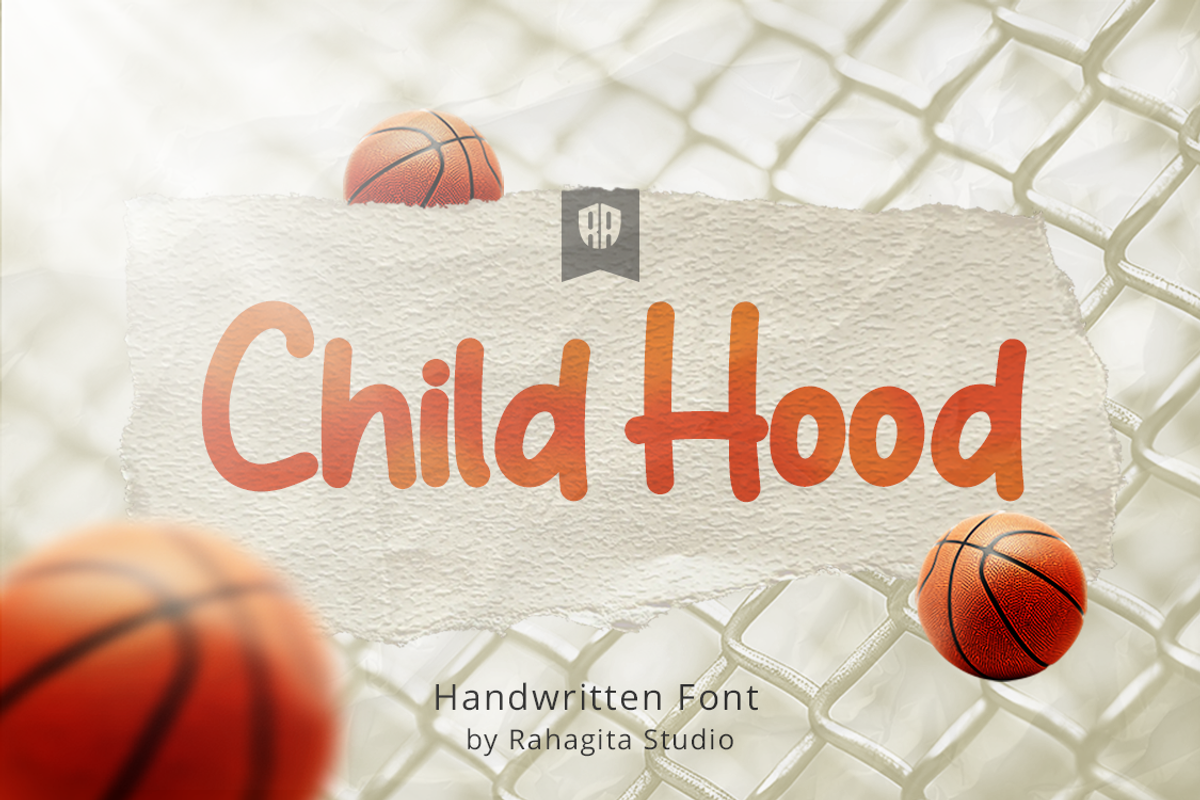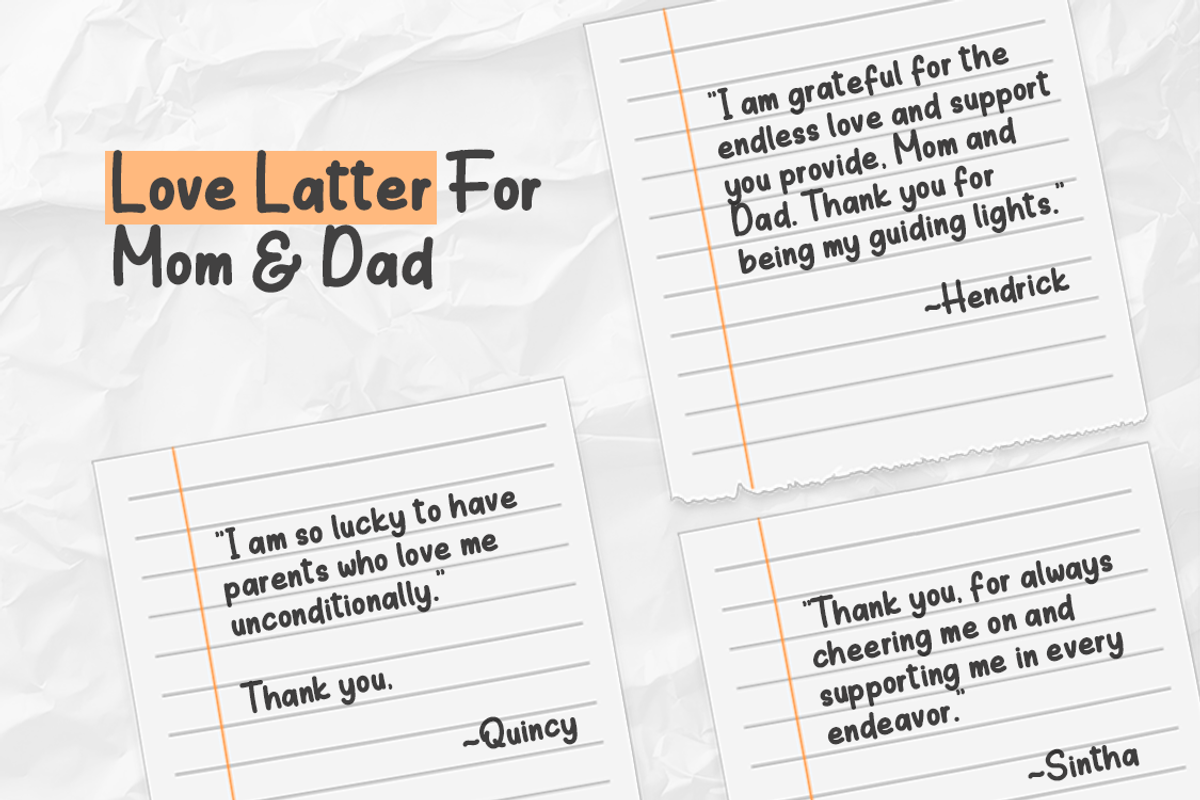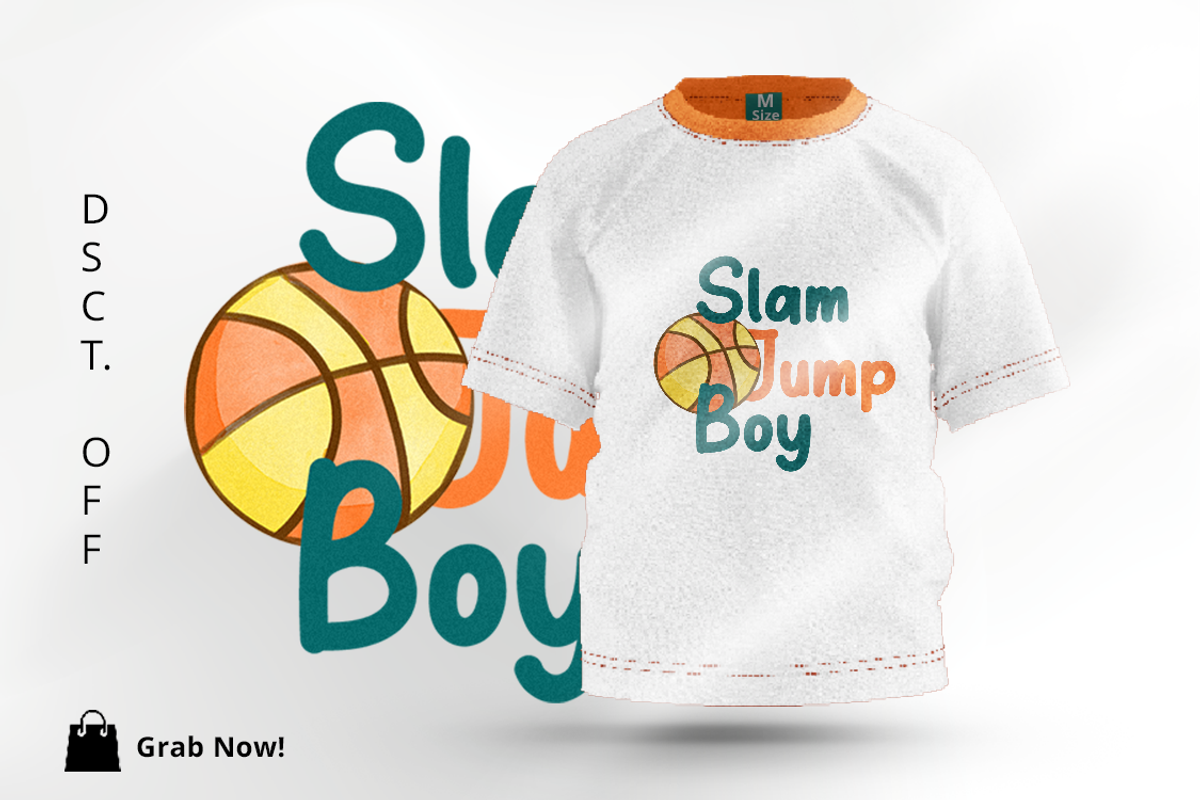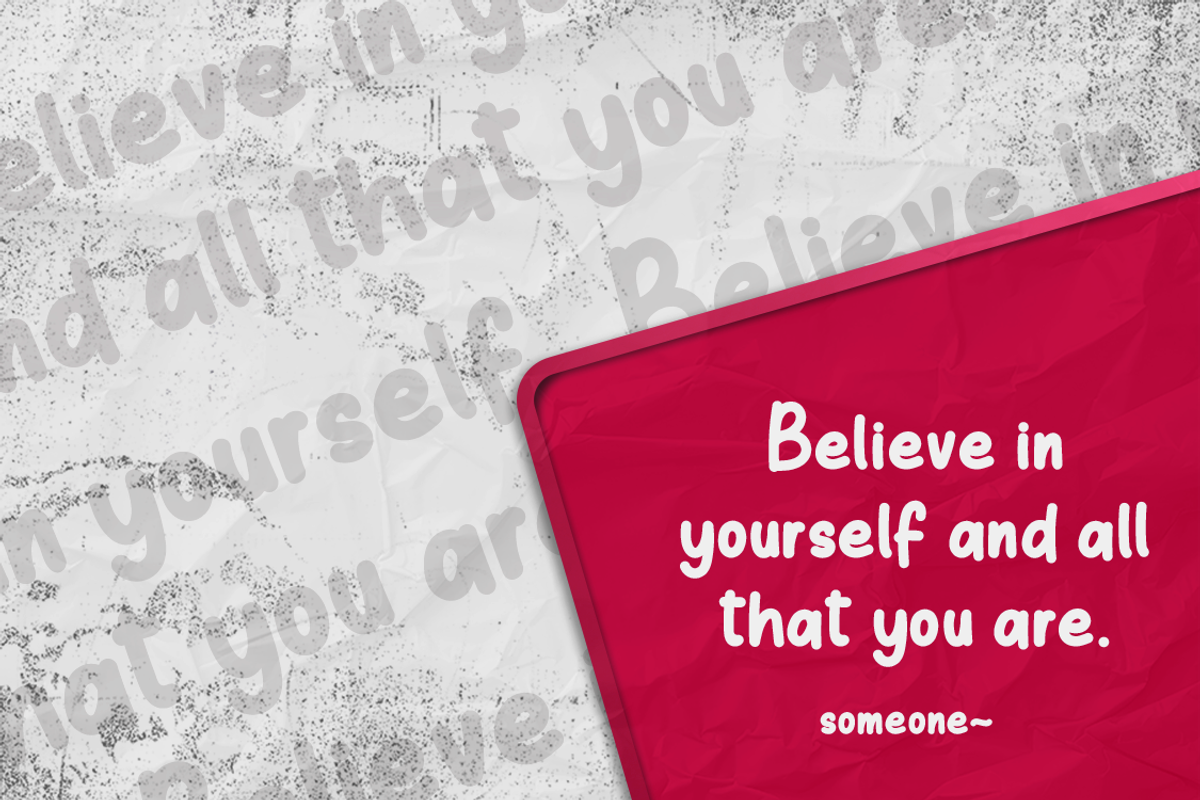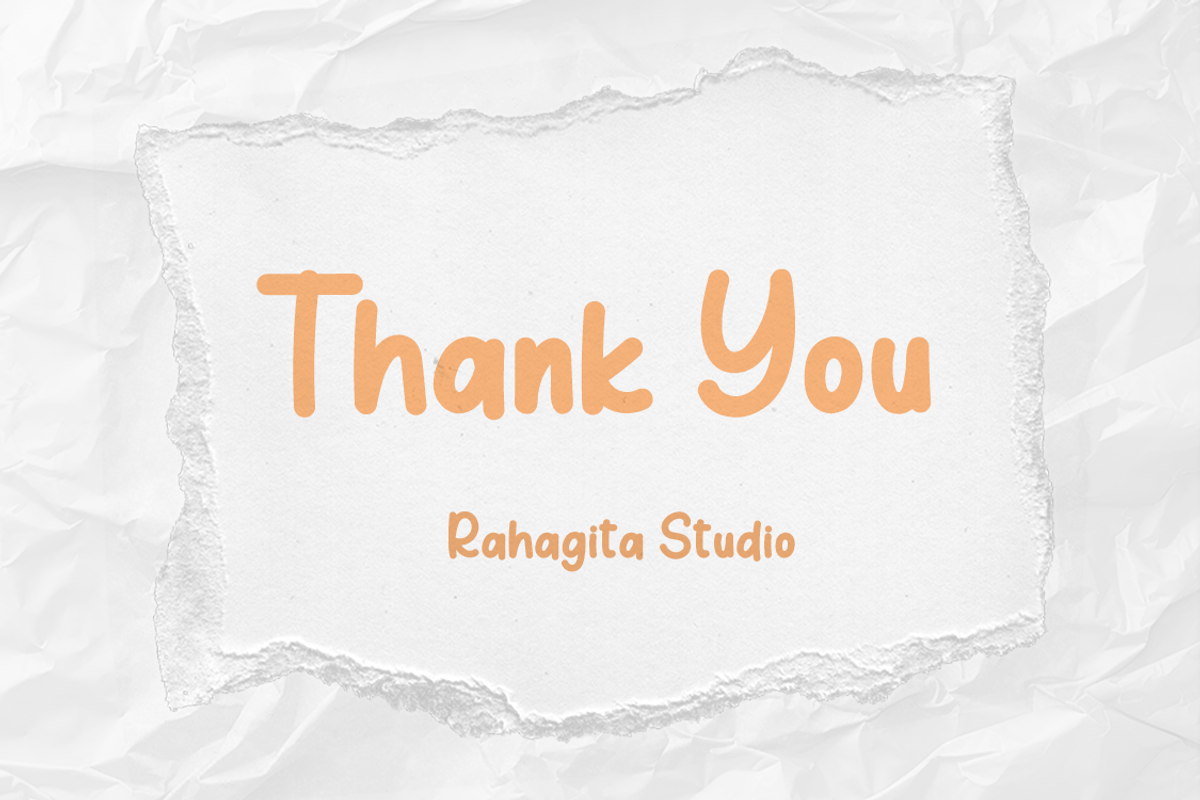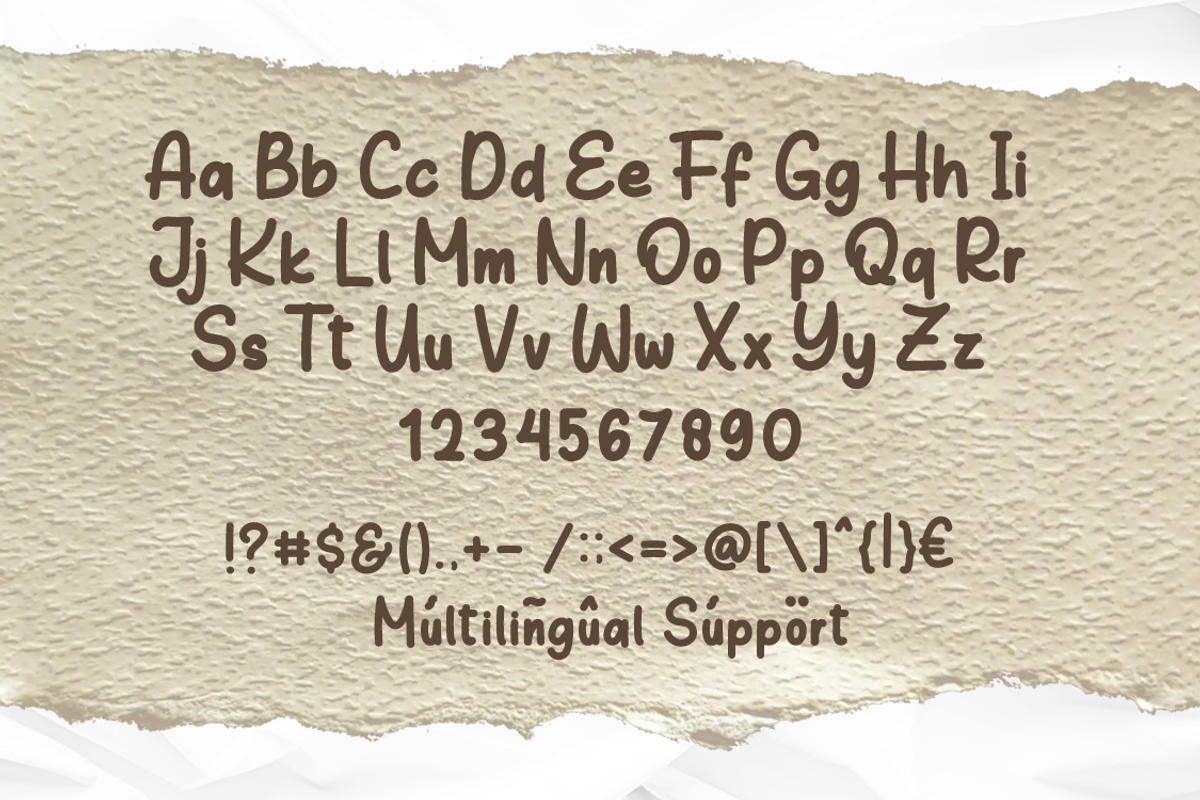
Child Hood
Add a touch of playfulness to your projects with Child Hood, a delightful handwritten typeface perfect for book titles, logos, flyers, and branding. Featuring OpenType support, multilingual options, and PUA encoding, this font is easy to use and versatile, bringing a charming and whimsical feel to any design.